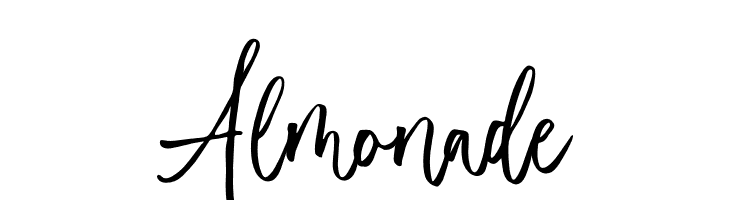
A flowing, cursive script font with elegant, connected strokes.
A classic, elegant script font with flowing, cursive letters.
A fluid and elegant script font with a natural, cursive style.
A flowing, cursive font with elegant, connected characters.
A playful and elegant script font with flowing, connected letterforms.
A lively, flowing script font with elegant curves and a handwritten appeal.